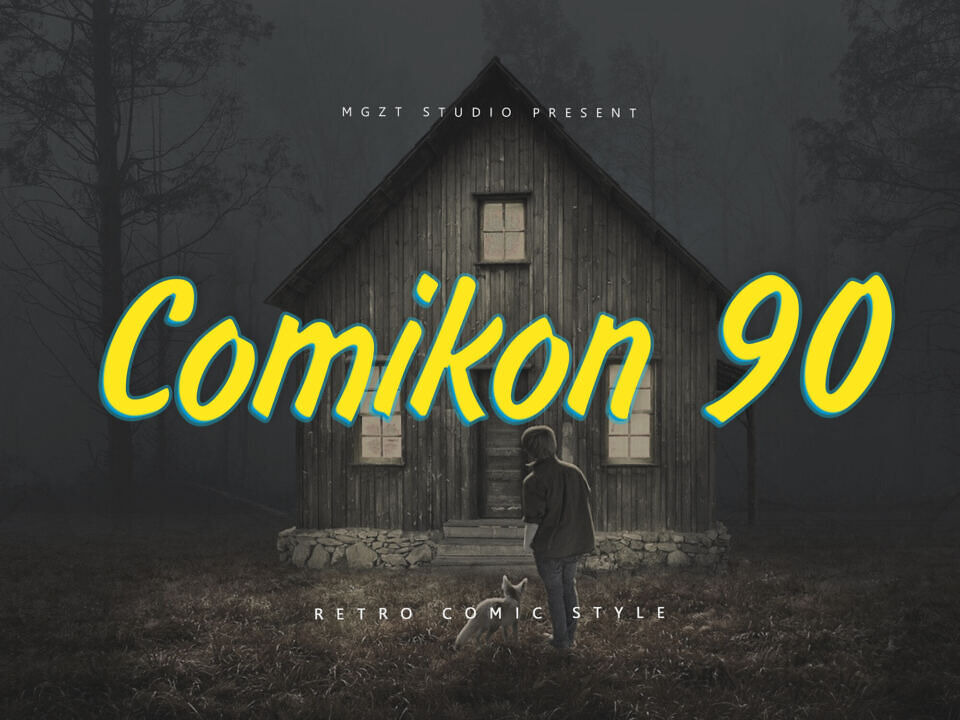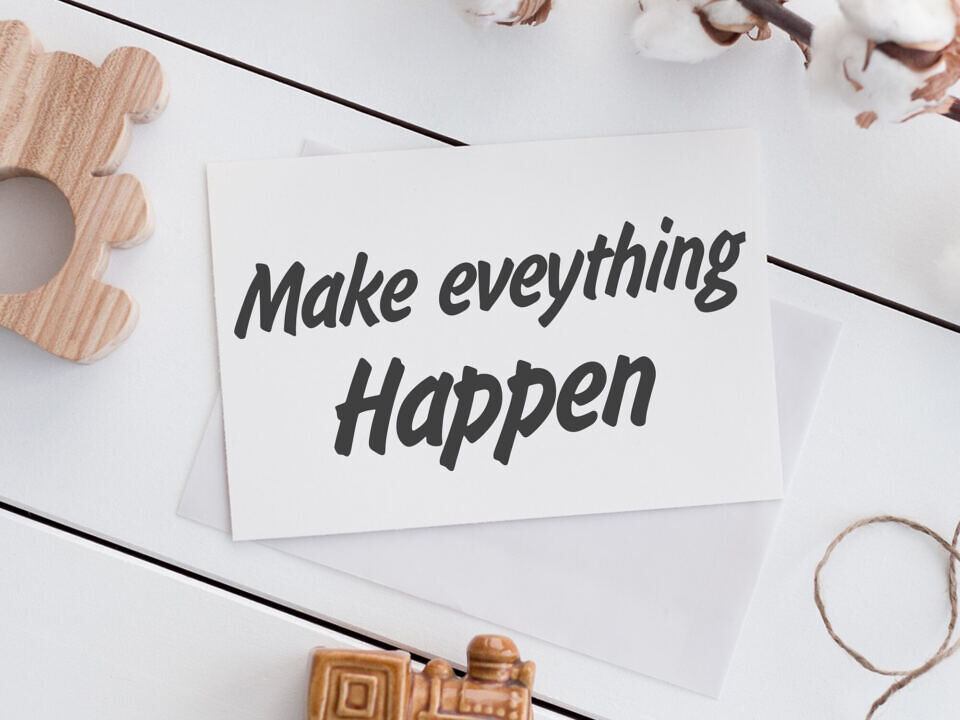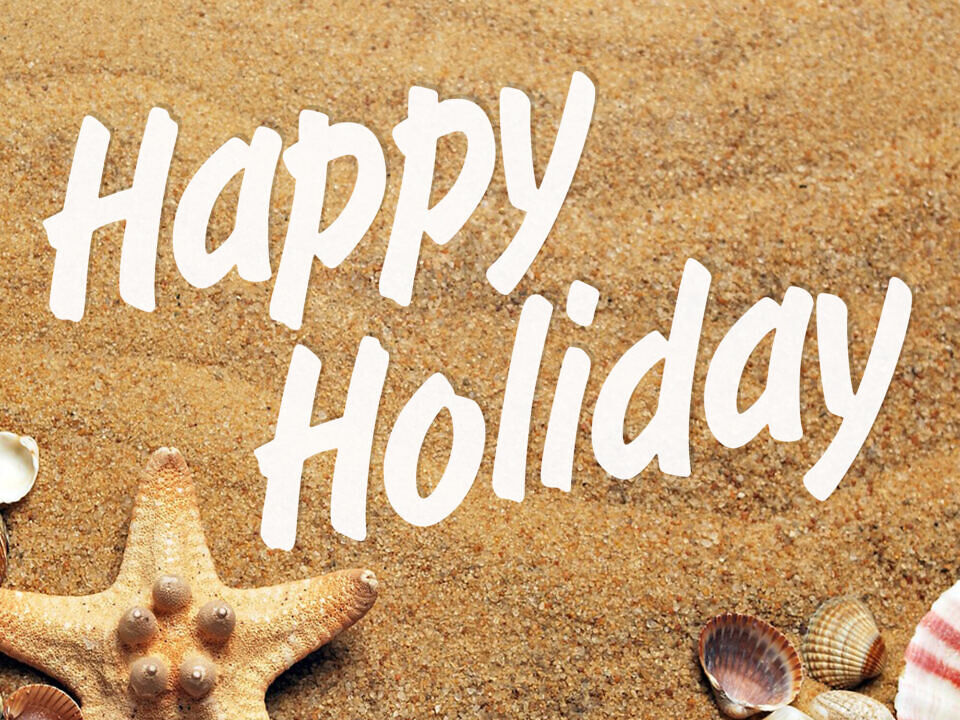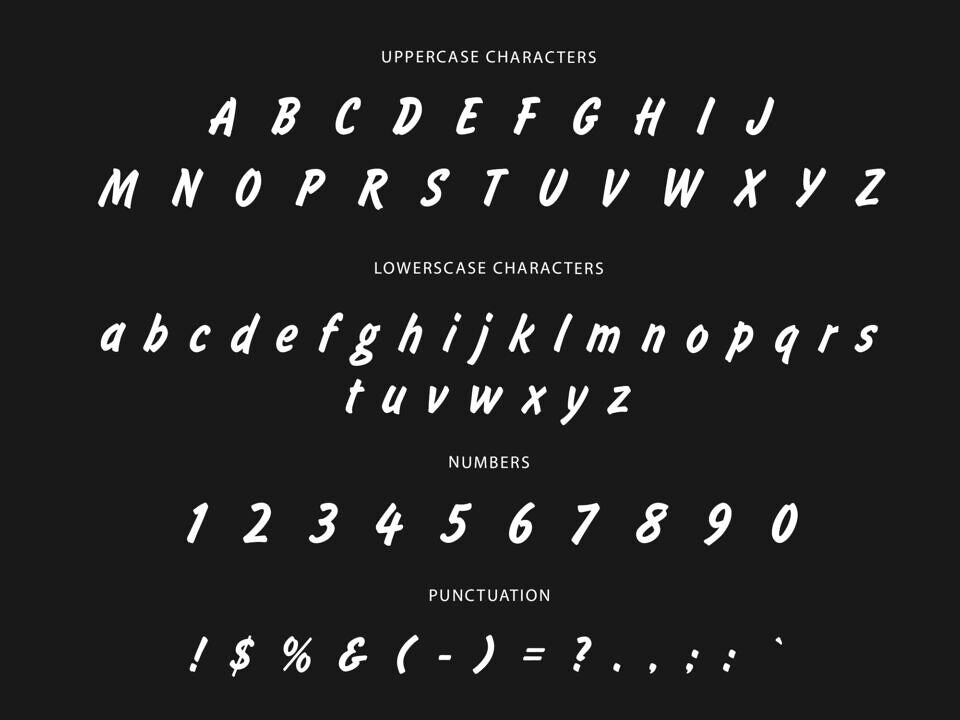
Comikon 90 carries subtle Retro influences, combined with an elegant curvature that sets it apart as a premium, high-end typeface. Whether used for logos, packaging, or editorial work, Comikon 90 brings a unique balance of playful retro vibes and exclusive elegance to any design.